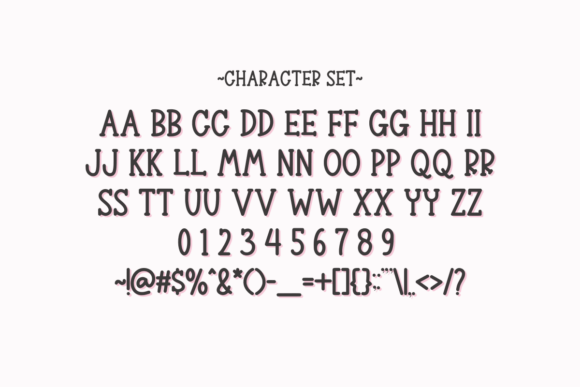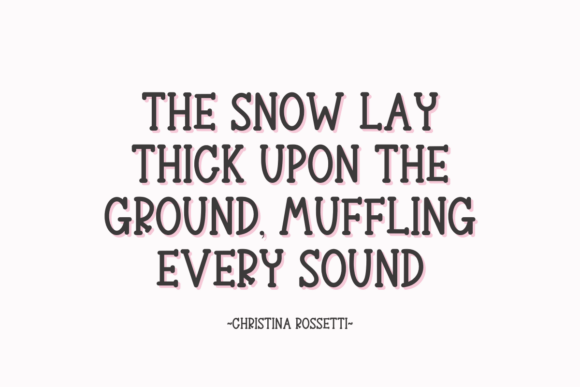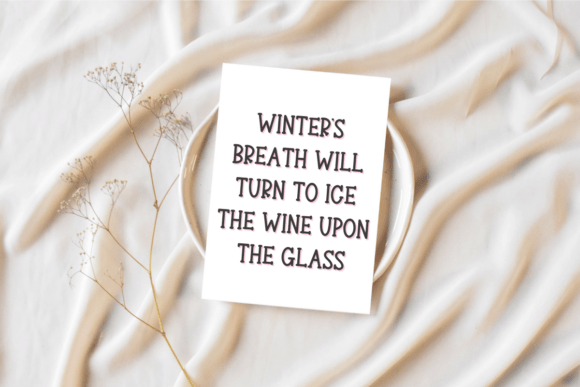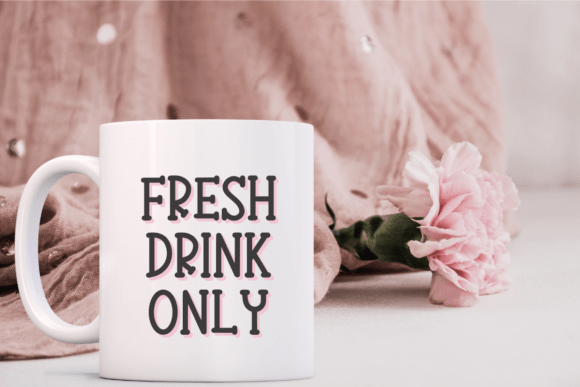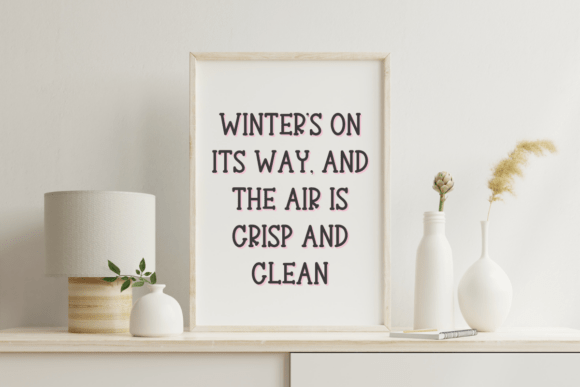
Introduction to Season White Font
Have you ever been working on a creative project, and you just can’t seem to find the perfect font to match your vision? You browse through countless options, but nothing seems to capture the playful, whimsical feel you’re going for. That’s when you stumble upon the Season White Font – a delightful design resource that’s sure to bring a smile to your face.
With its cute and friendly style, the Season White Font is perfect for a wide range of creative projects, from crafts and planners to Kindle Direct Publishing (KDP) and stickers. Whether you’re a seasoned crafter, a graphic designer, or a maker looking to add a personal touch to your DIY projects, this font is an absolute must-have. And the best part? It’s available for free download, complete with a transparent background, making it easy to integrate into your designs.
As a valuable design resource, the Season White Font offers a level of versatility and creativity that’s hard to find in other fonts. Its high-quality design makes it perfect for sublimation, Cricut, and other creative projects, allowing you to bring your unique ideas to life. So why settle for a generic font when you can have a font that’s as unique and special as you are?
Key Features of Season White Font
- Unique, elegant, and modern font style with a transparent background, perfect for various design applications.
- Designed to be versatile and stylish, making it an ideal choice for designers working on various creative projects.
Honest Review: Season White Font
As a designer, I’ve had the chance to work with numerous fonts for various creative projects. Recently, I stumbled upon the Season White Font, and I’m excited to share my thoughts on this design resource.
What works well: ✨ Season White Font boasts a sleek, modern aesthetic that’s perfect for any high-quality design project. The transparent background makes it easy to combine with other design elements, and the free download option is a major plus for those on a budget. The font’s clean lines and minimalistic design make it an excellent choice for creating visually appealing graphics, logos, and typography.
Limitations: ⚠️ While the Season White Font is a solid choice, it may not be the most versatile option for designers who need a wide range of font styles. Additionally, some users may find the font’s simplicity a bit too minimalist, which could limit its use in certain design contexts.
Overall impression: I’m impressed with the Season White Font’s high quality and ease of use. It’s an excellent addition to any designer’s toolkit, and its free download option makes it a great resource for those on a budget. Whether you’re working on a logo, graphic, or other creative project, the Season White Font is definitely worth considering.
- Perfect for modern, minimalist designs
- Easy to combine with other design elements